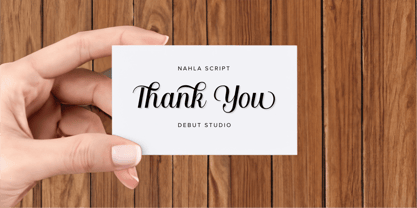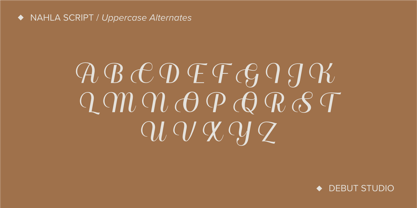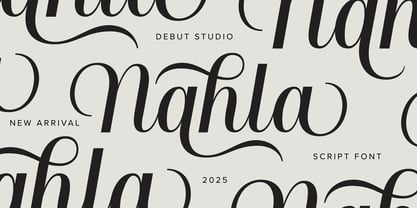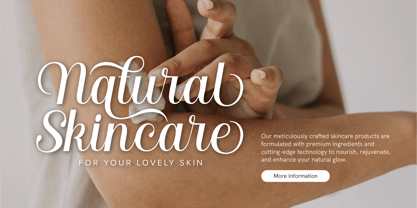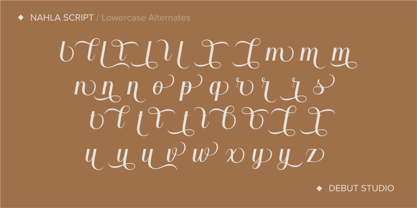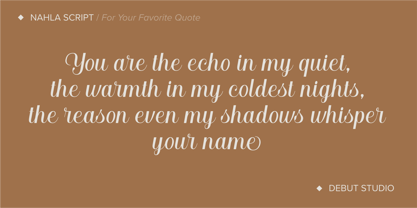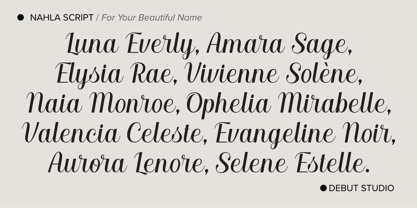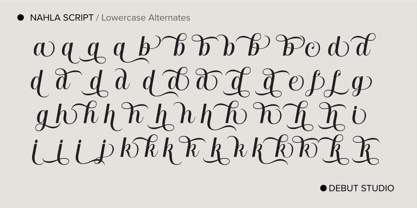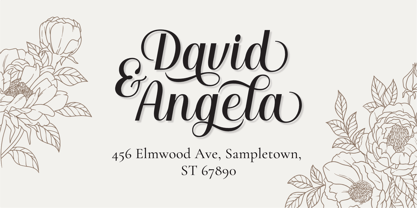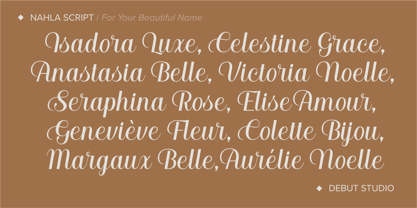
Nahla Script Regular
by Debut Studio
The Nahla Script Regular Font Family was designed by Ari Fadli and published by Debut Studio. Nahla Script Regular contains 1 styles. More about this family
Nahla Script is a brush pen calligraphy-inspired script font, designed and completed in 2025. With its smooth, well-balanced letterforms and generous white space, Nahla Script offers both clarity and elegance—making it a versatile choice for a wide range of design needs. From branding, packaging, and logos to invitations and social media graphics, its clean curves and polished strokes bring a refined yet friendly feel. Nahla Script pairs beautifully with serif or sans serif fonts, making it a great companion in editorial layouts, web design, and modern visual identities
Designers: Ari Fadli
Foundry: Debut Studio